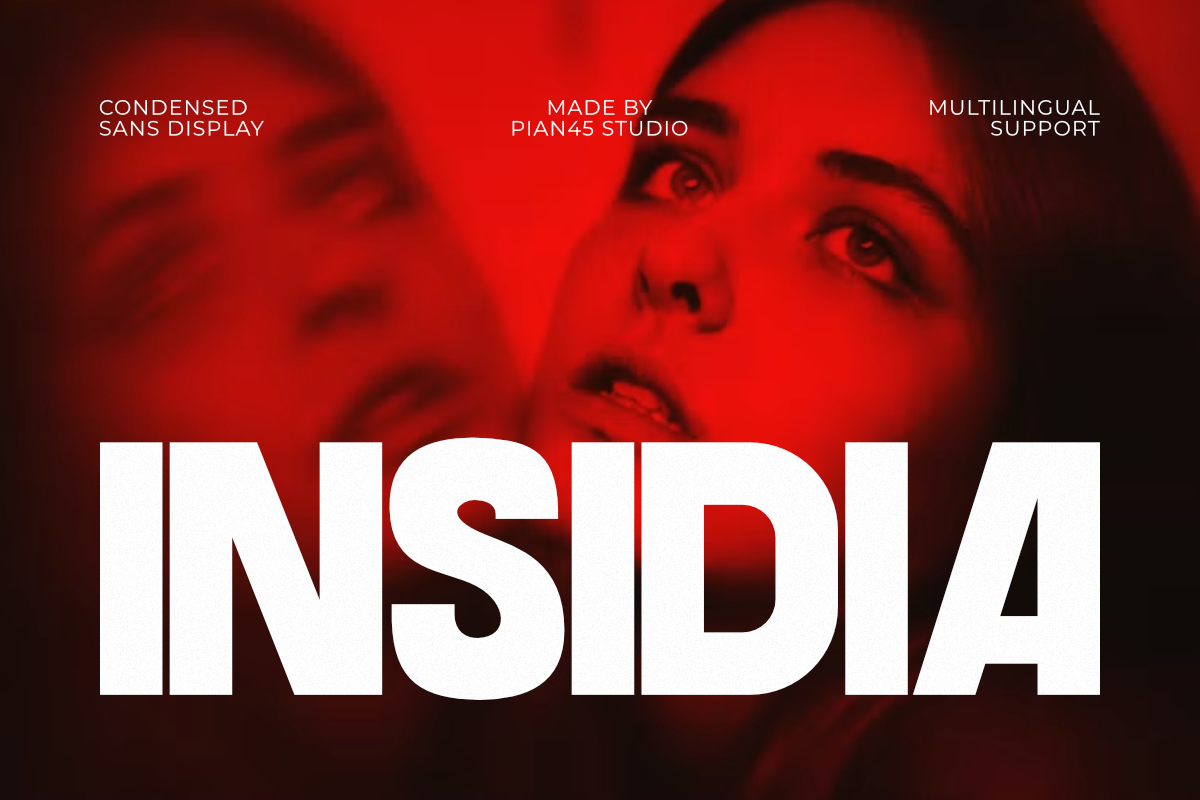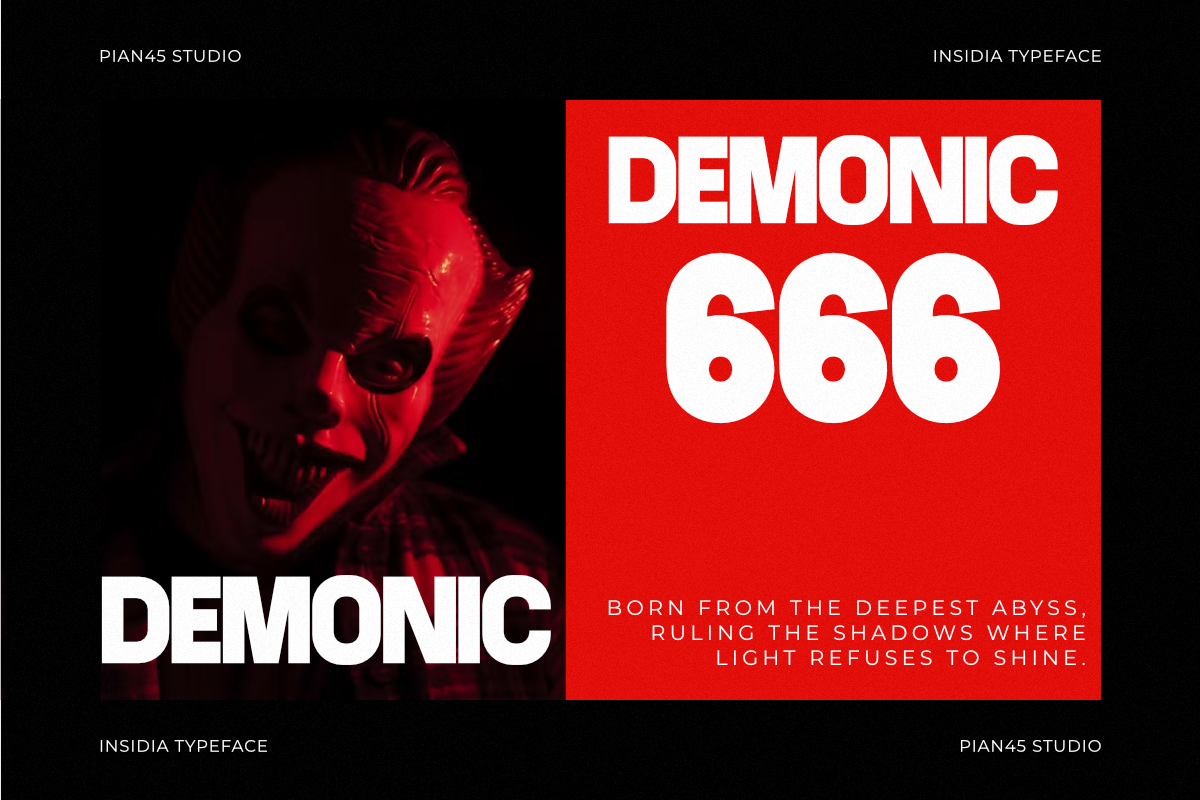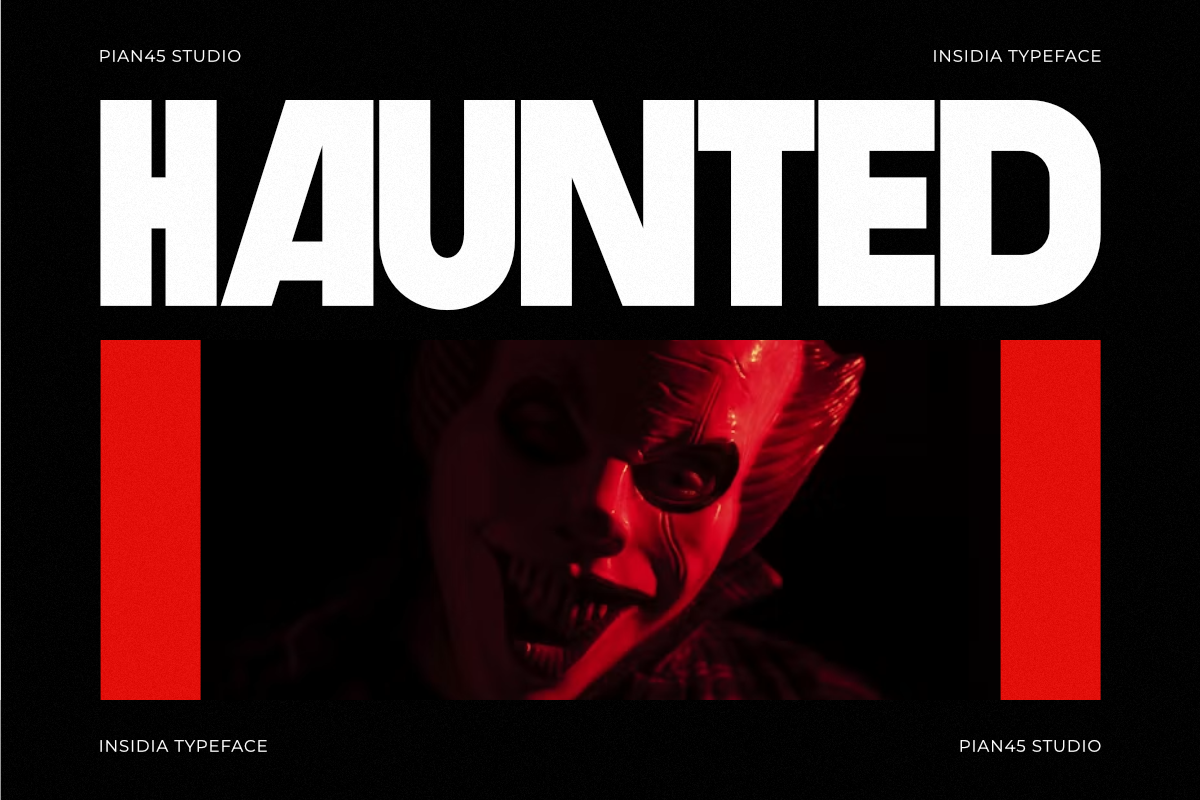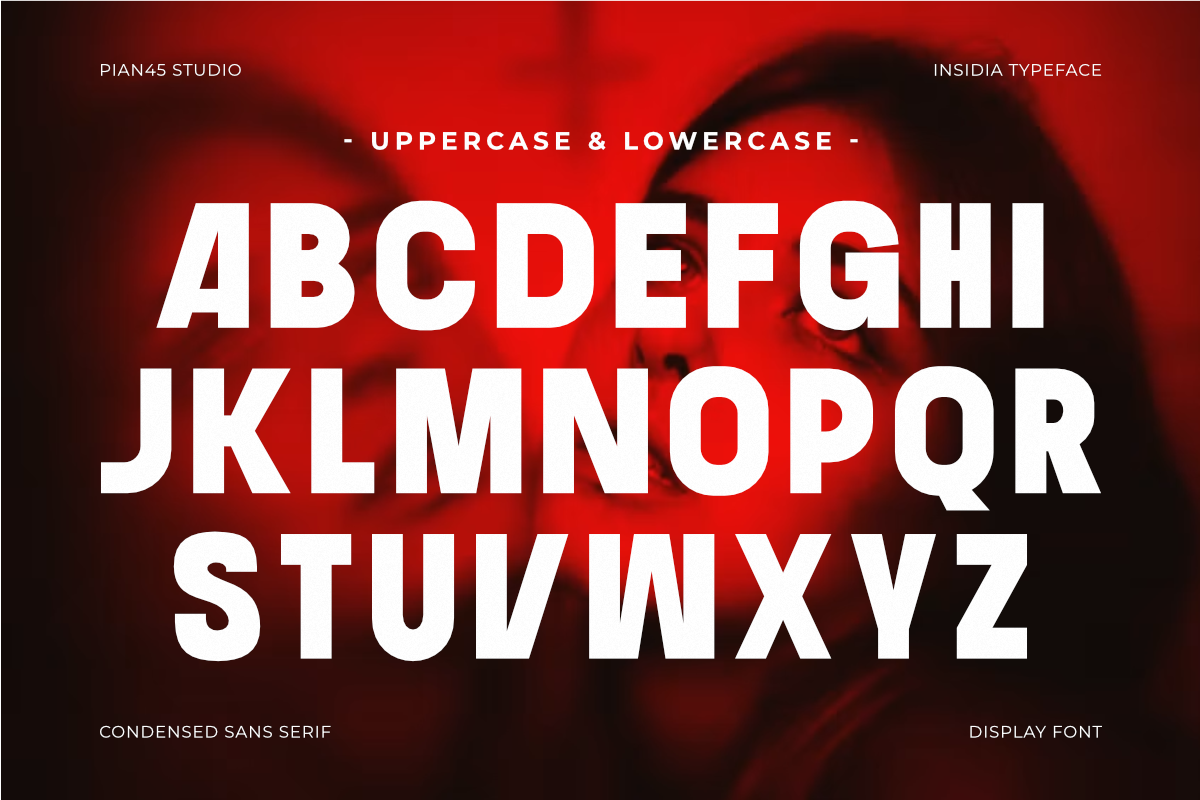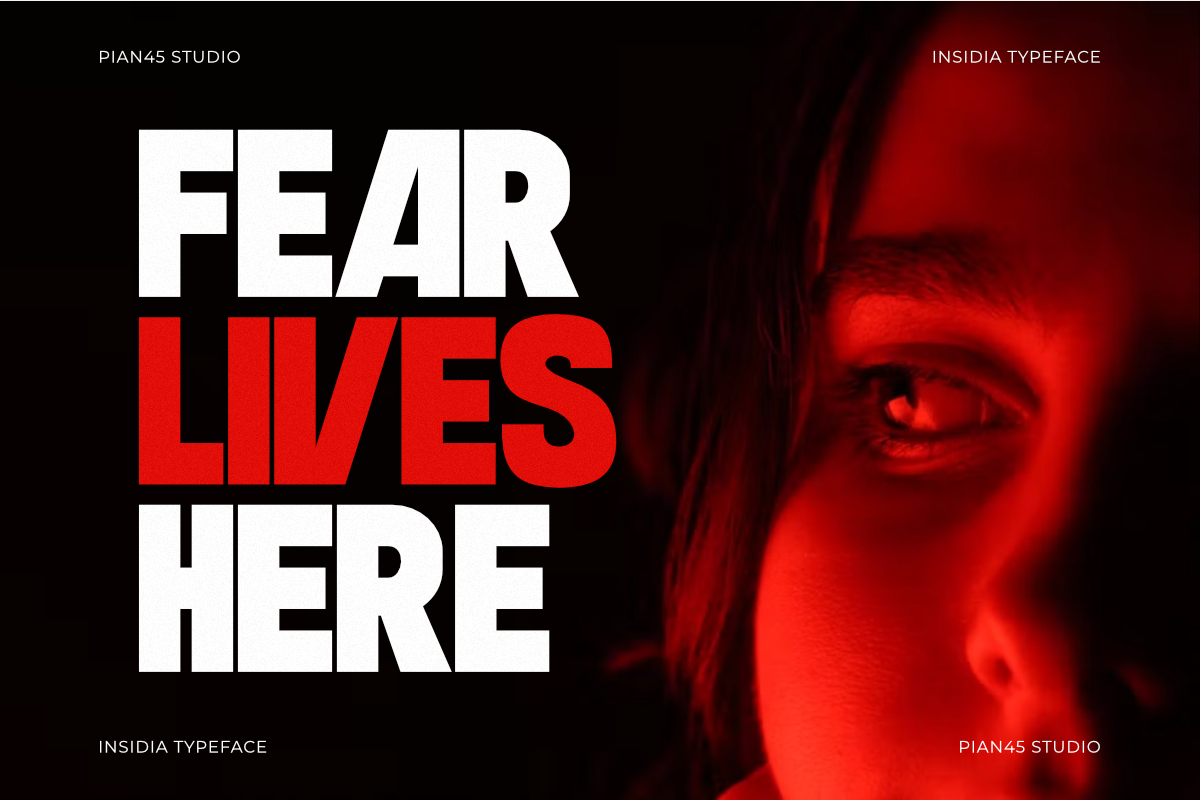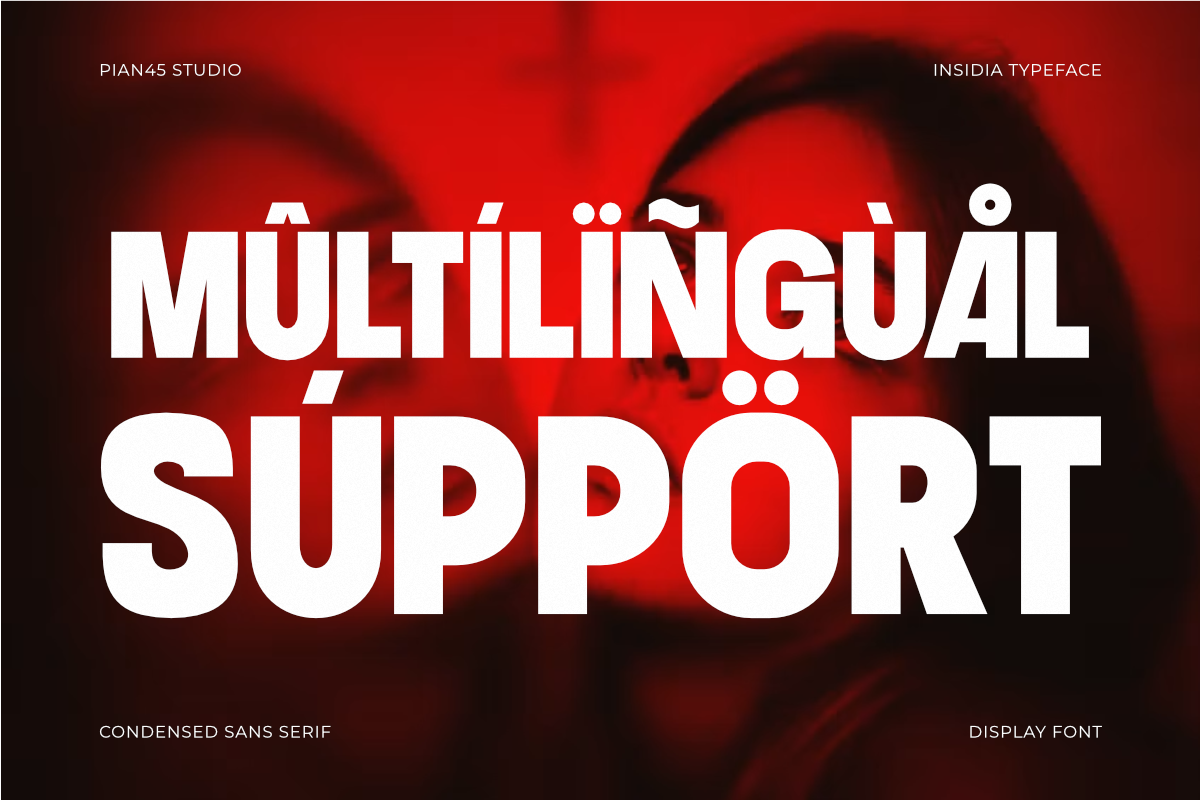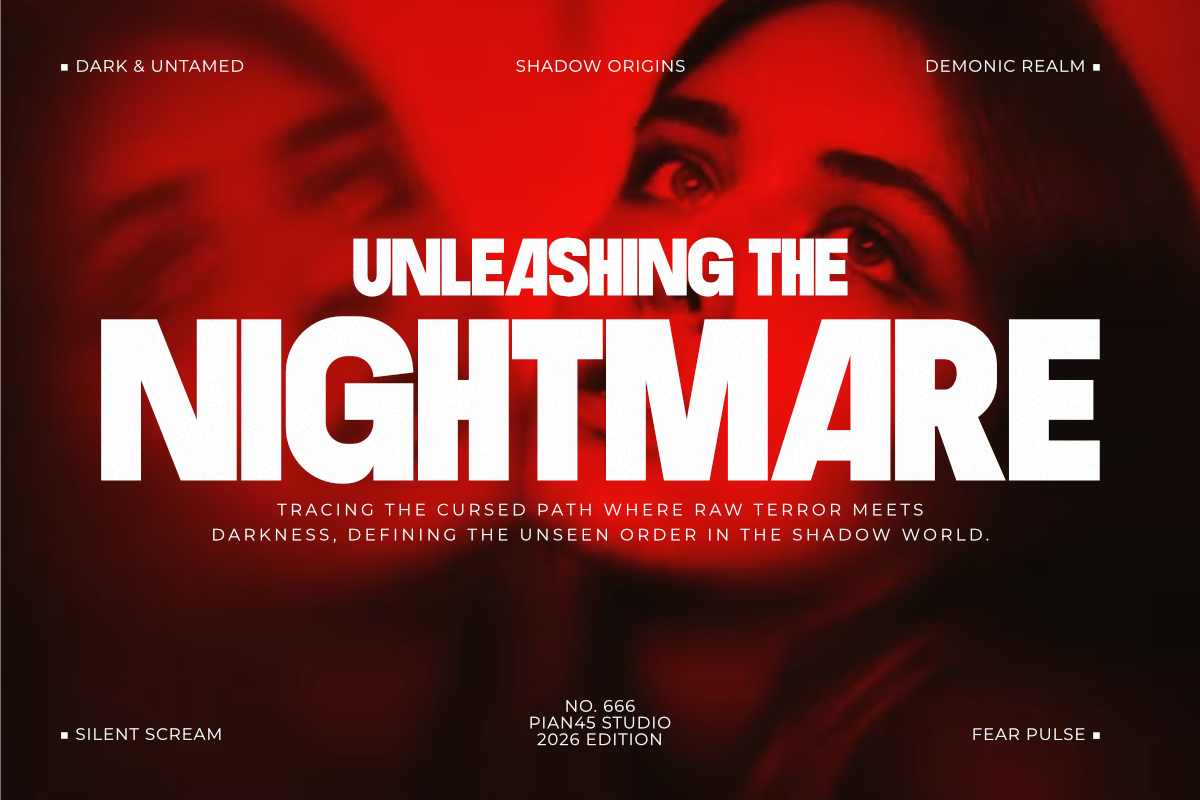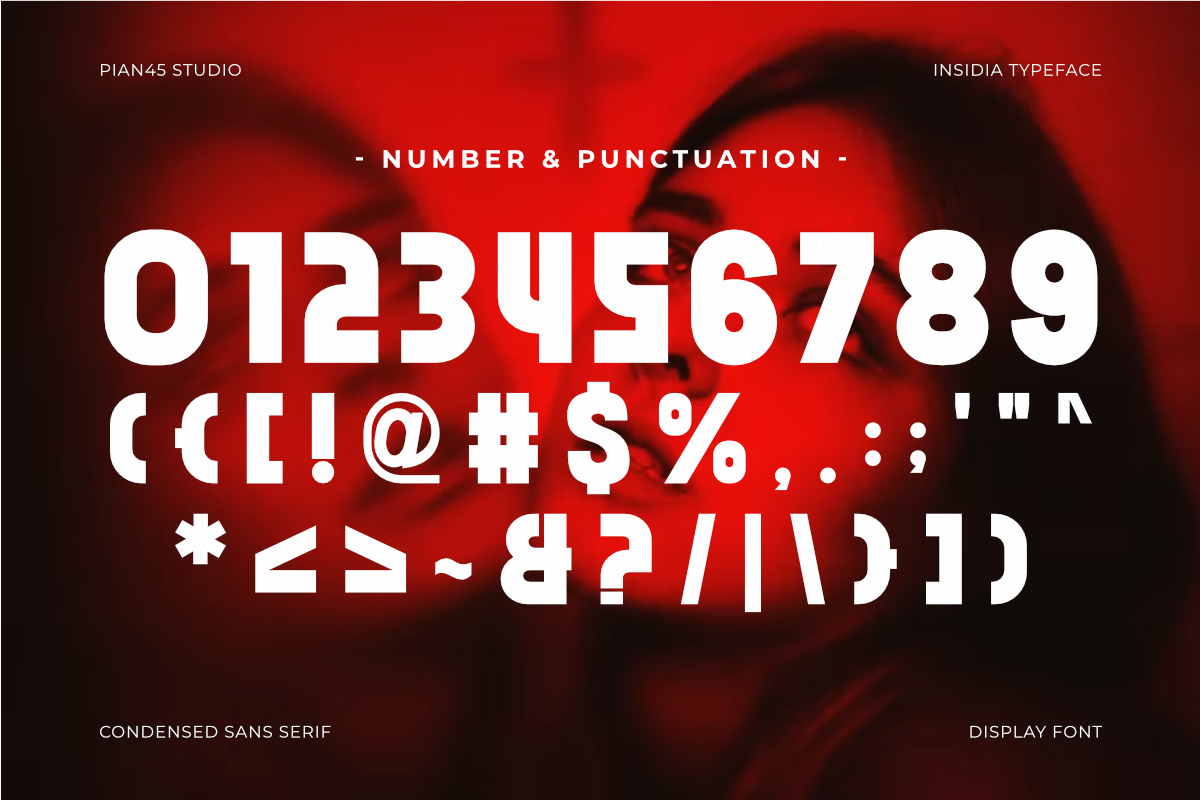
Insidia - Modern Condensed Font
Insidia is a dark, dramatic, and high-impact Modern Condensed Sans Display font engineered to convey intense suspense, cinematic tension, and bold visual elegance. Featuring solid blocky letterforms, clean geometric lines, and a space-saving condensed typeface architecture with full multilingual support, this all-caps font is built for horror movie posters, thriller branding, dark academia editorial titles, urban streetwear apparel, and esports logos. Its heavy visual presence and refined structure guarantee maximum legibility, making it the ultimate tool for striking headlines, book covers, promotional banners, and high-visibility digital marketing graphics.